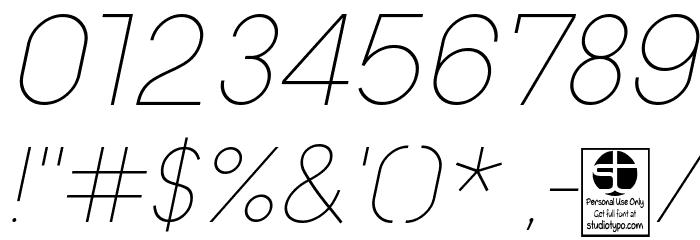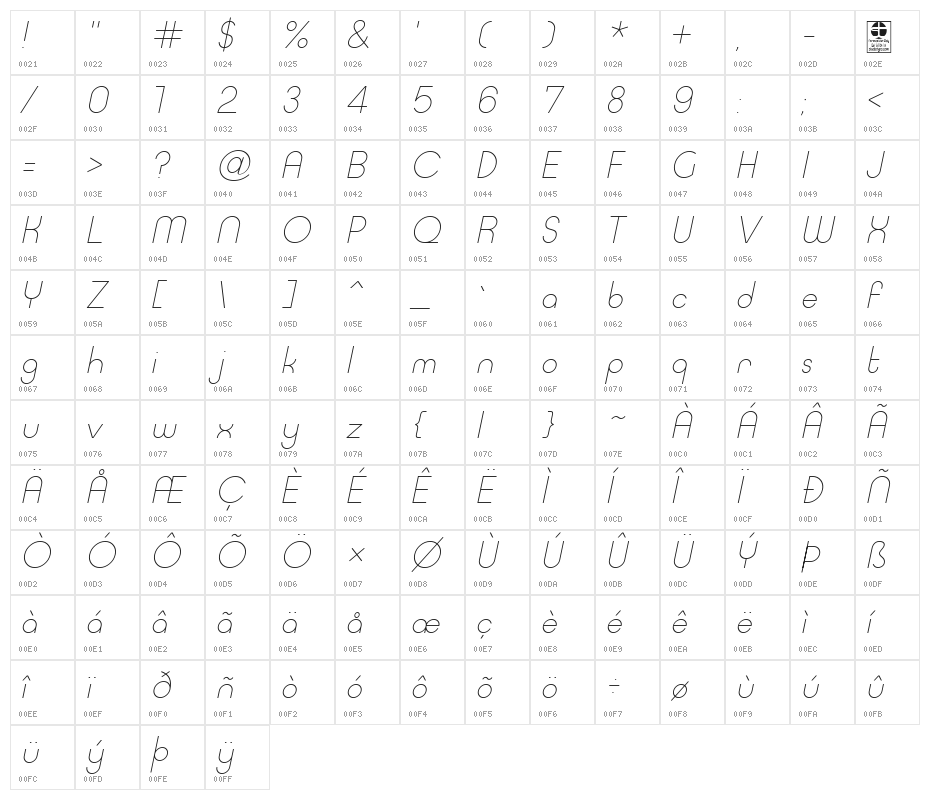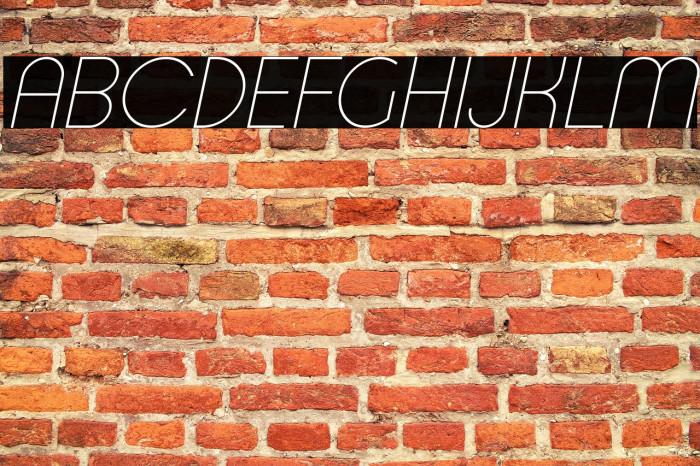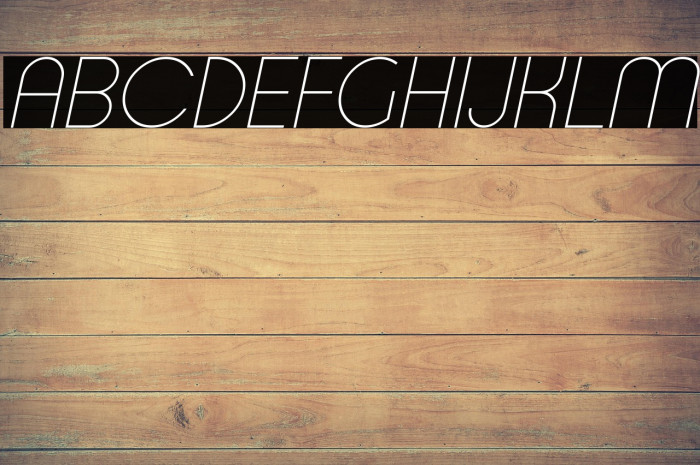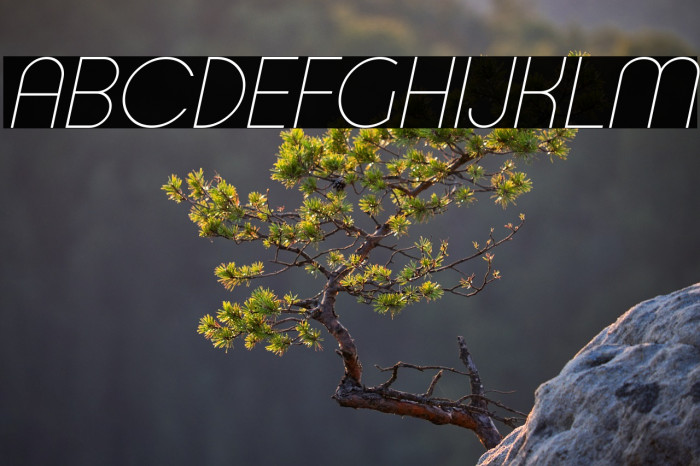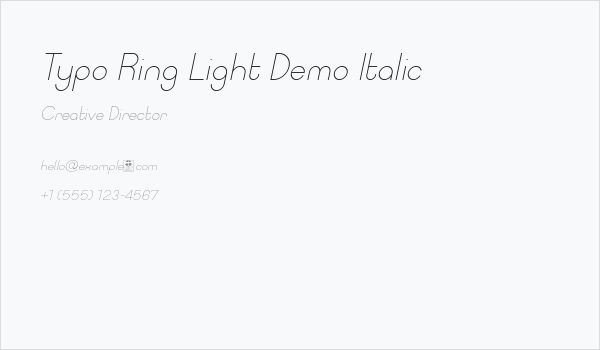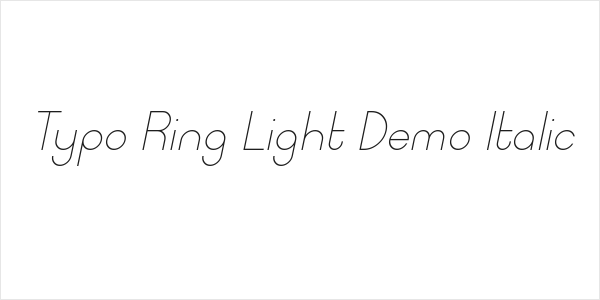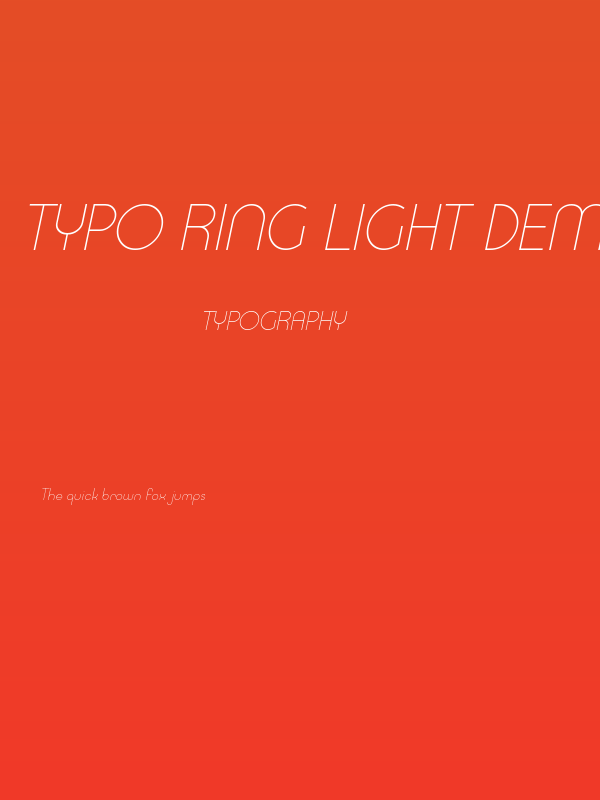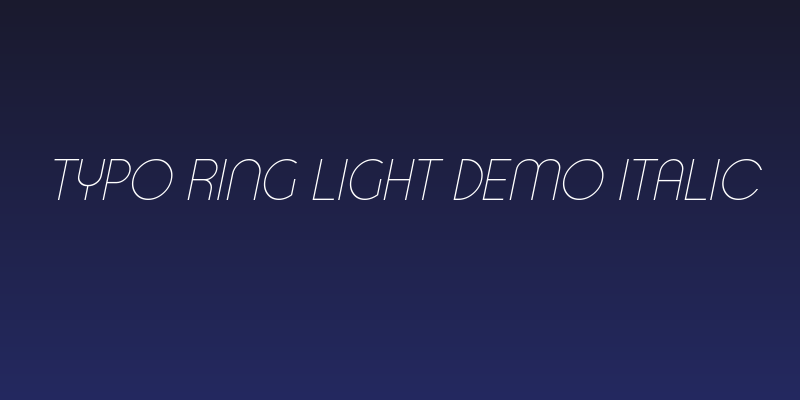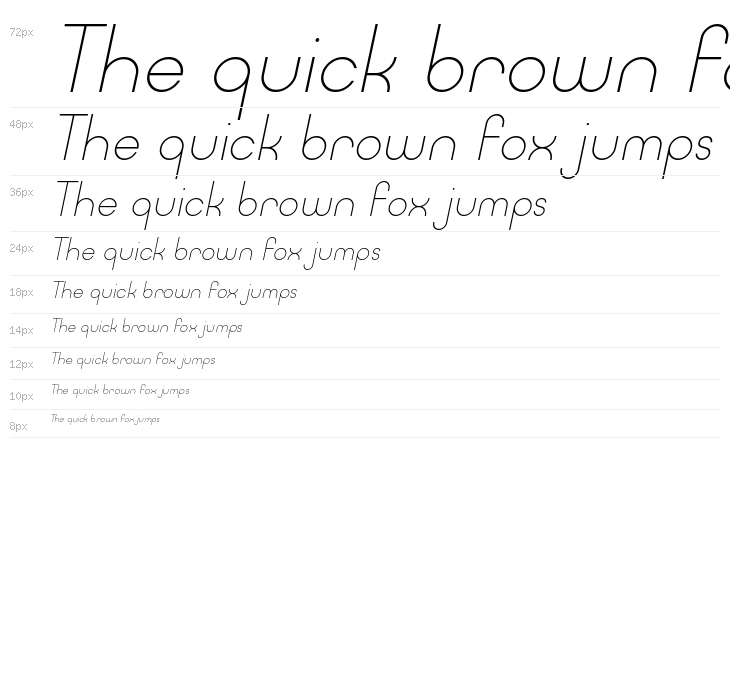
Typo Ring Light Demo Italic Font
Typo Ring Light Demo Italic Description
This font features a sleek and modern design with a light and airy feel. The characters are slightly elongated with a consistent stroke width, giving it a clean and minimalist appearance. The italic style adds a subtle elegance, making it suitable for contemporary designs. The uppercase and lowercase letters maintain a uniform height, contributing to its balanced look. The numerals and special characters are crafted with the same attention to detail, ensuring a cohesive visual experience. This font is perfect for projects that require a modern and sophisticated touch.